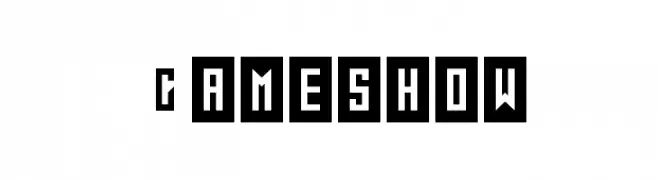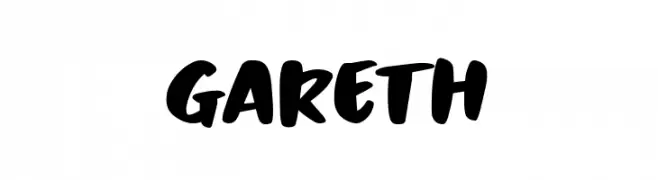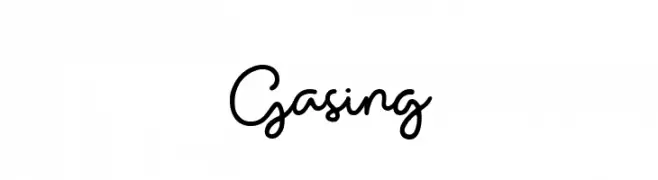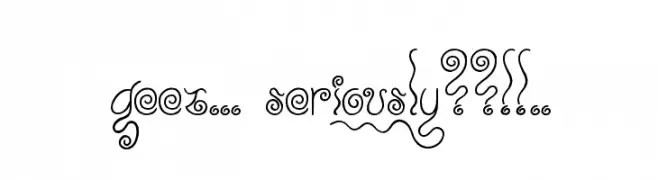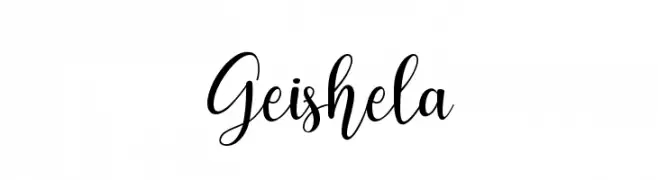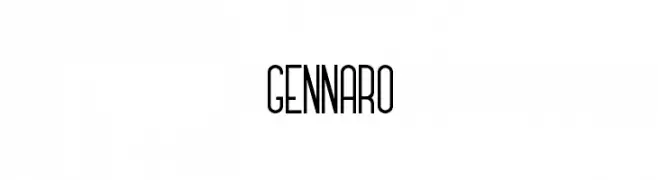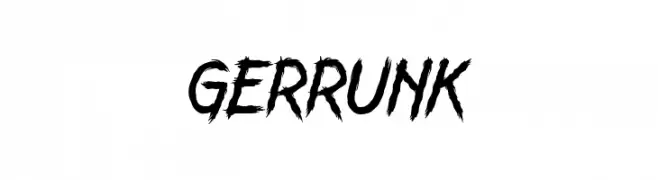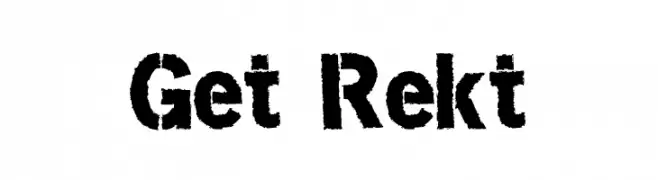
A bold icon set for gaming and tabletop themes.
A bold, high-contrast serif font with elegant curves and distinctive serifs.
A bold, expressive handwritten font with smooth curves and a playful style.
A playful and flowing script font with elegant curves and continuous strokes.
A whimsical and decorative font with swirling, curly embellishments.
A flowing, cursive script font with elegant curves and a handwritten style.
A tall, narrow, and modern font with a sleek and consistent design.
A jagged, edgy font with irregular, sharp strokes resembling torn paper.
A bold, distressed font with a textured, urban style.